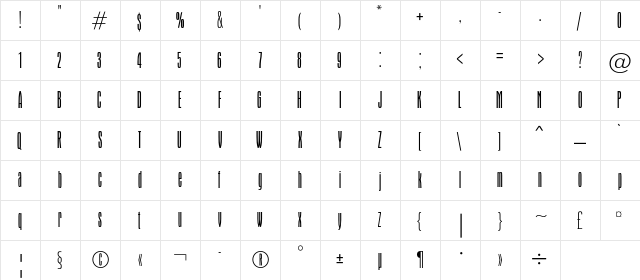
ApicalThinC Regular
Design Context for ApicalThinC Typeface
ApicalThinC takes a measured approach to typography — its balanced proportions and neutral character make it a reliable workhorse for both digital and print work. Its slender proportions lend an understated elegance to any composition.